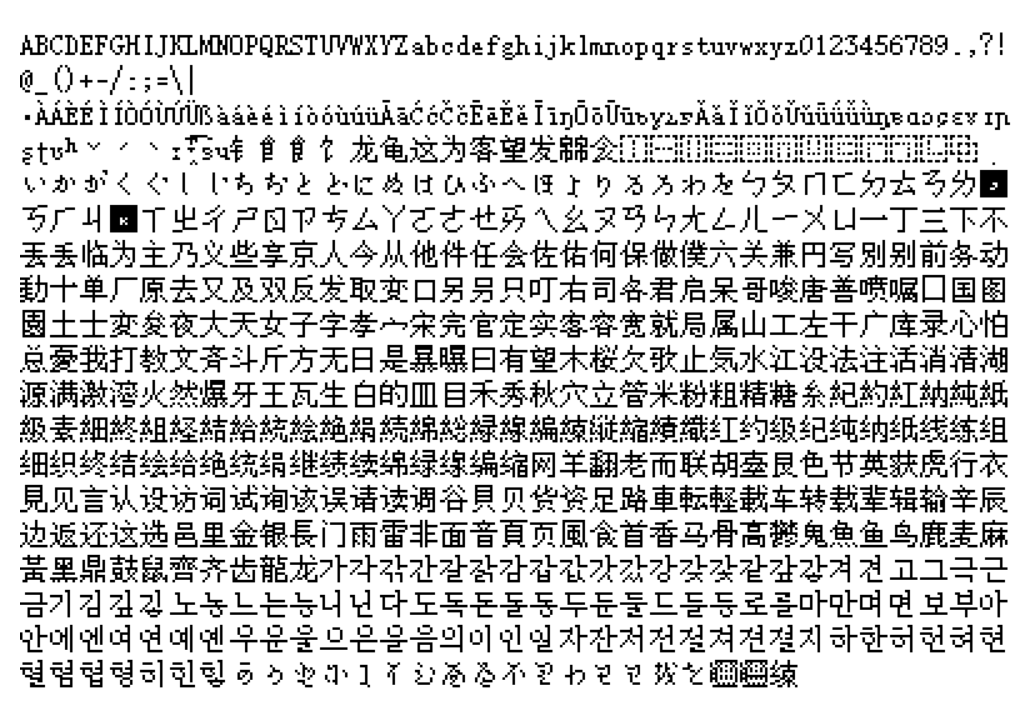
pre-windows vista 12×12 simsun my beloved
What do we've got here? 1) Extended Latin, not complete but fairly broad; 2) Hiragana, complete; 3) Katakana, complete; 4) Kanji/Hanzi set, clearly partial. 5) Korean/Hangul, incomplete, missing glyphs AC00–D7A3. 6) Small bits.